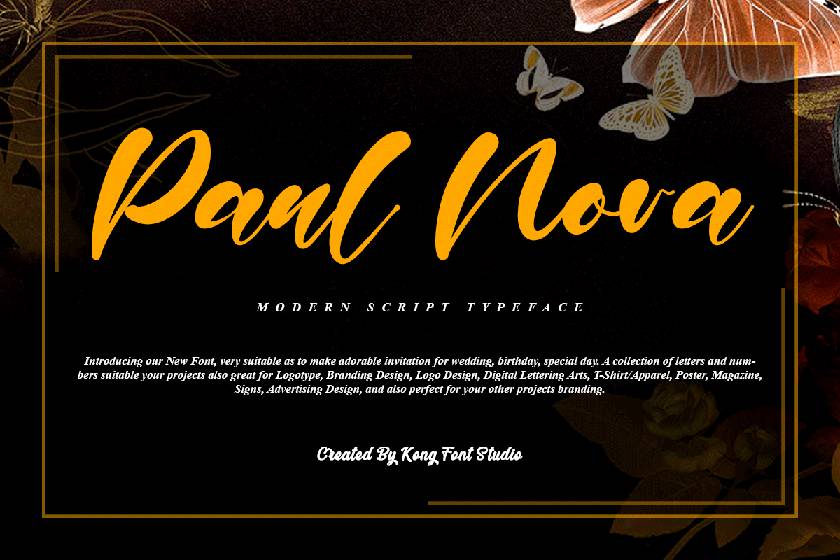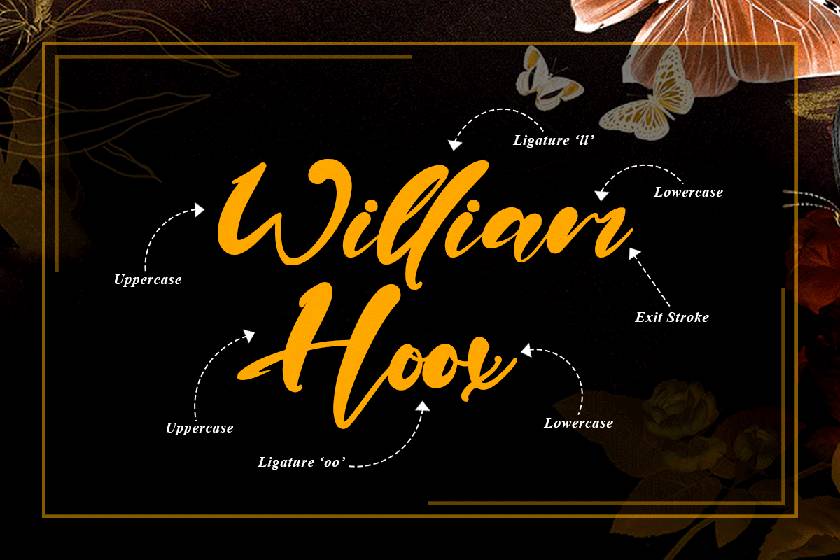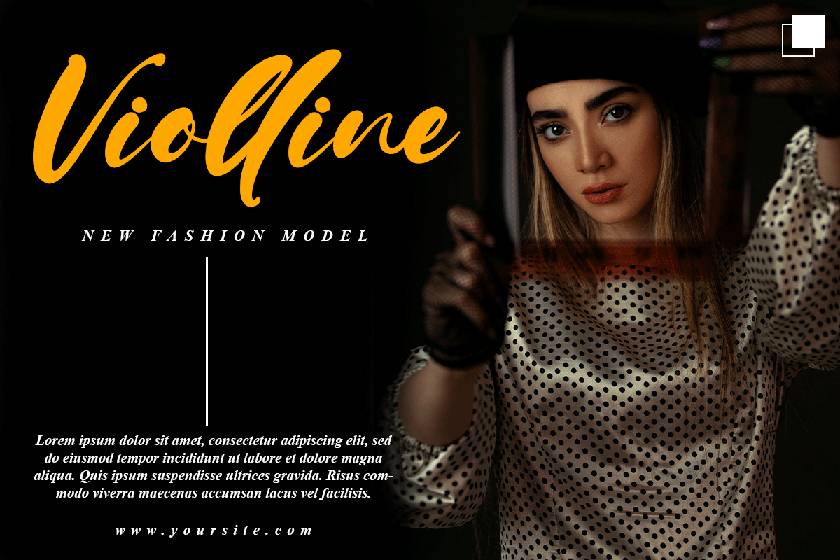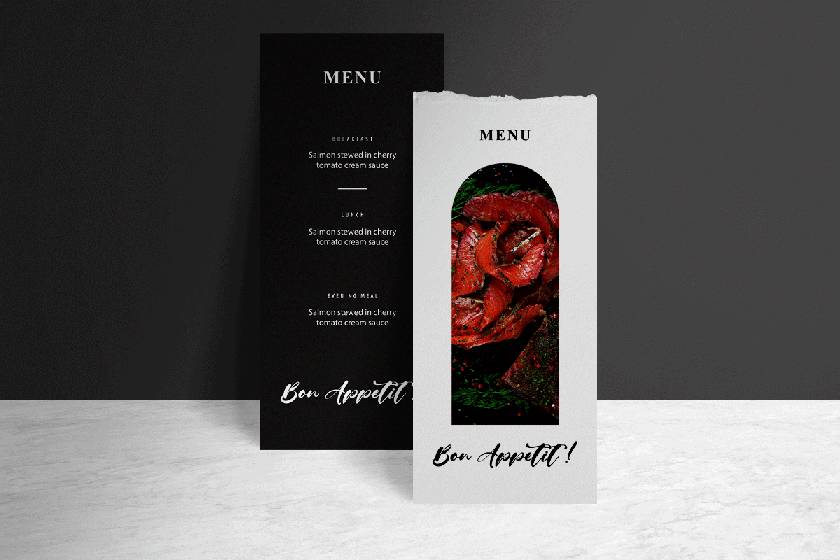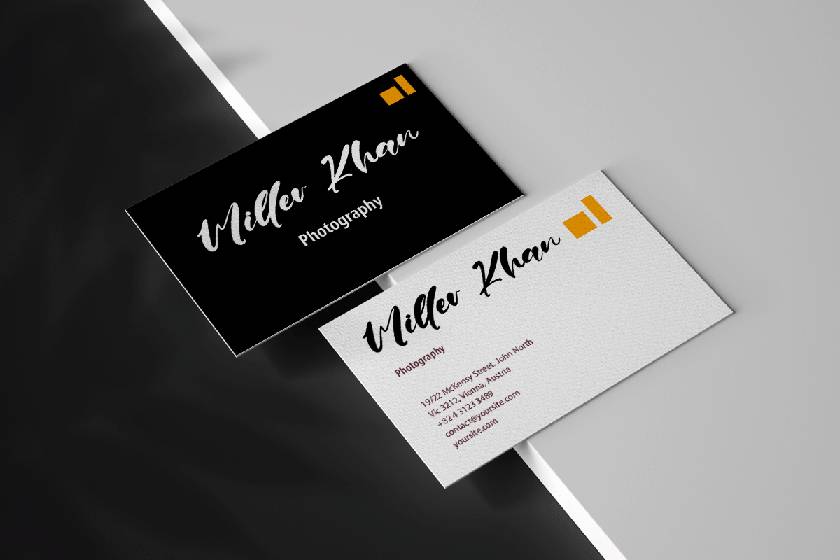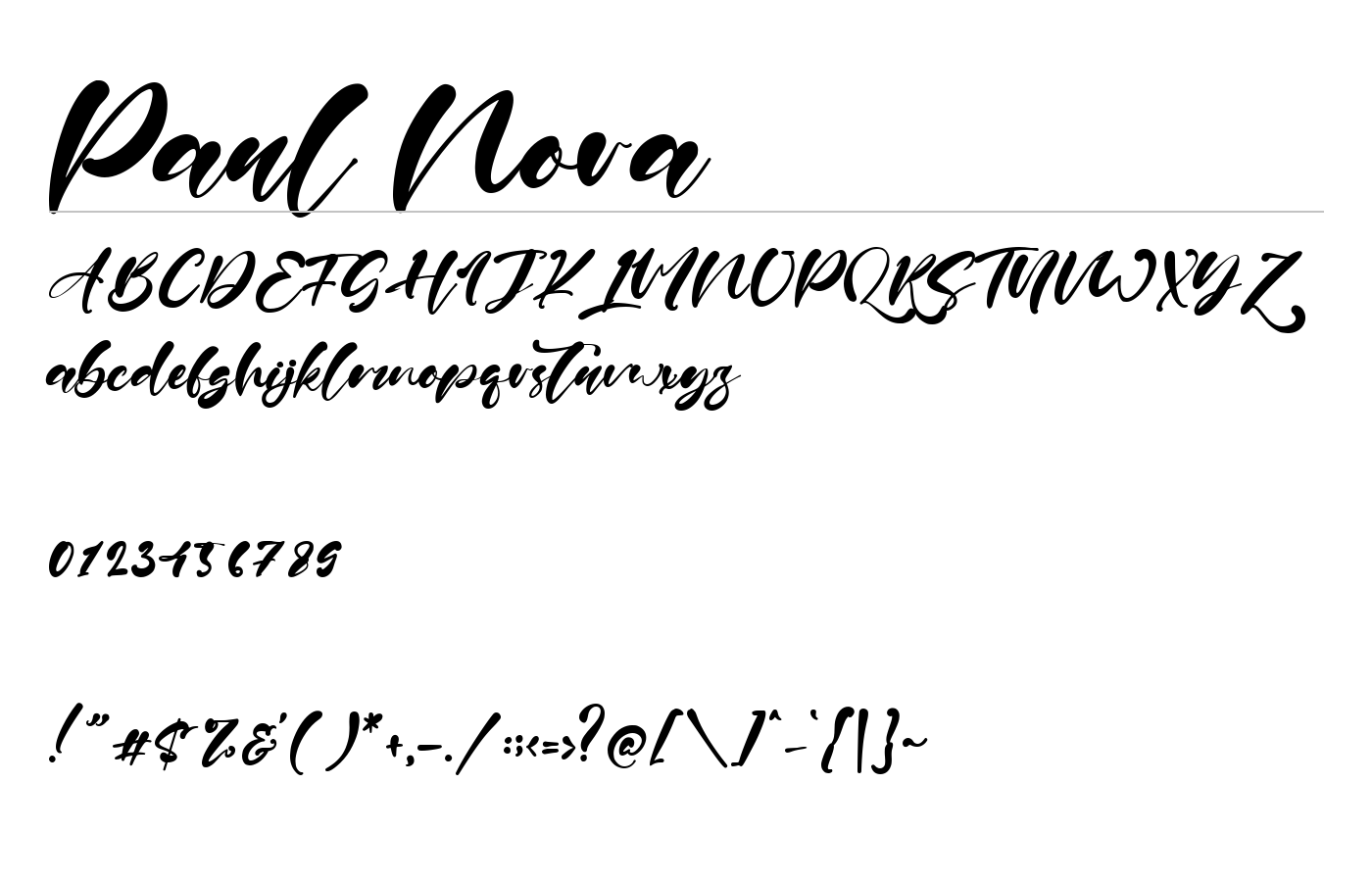
Paul Nora is an elegant script font characterized by its smooth, flowing strokes and expressive, hand-lettered style. Its medium weight and fluid curves give it a graceful and personal feel, making it ideal for luxury branding, invitations, and creative projects that seek a sophisticated yet approachable touch. This font’s refined personality works beautifully in headlines and logos where a stylish, artistic flair is desired.
Paul Nora Font
About Paul Nora Font